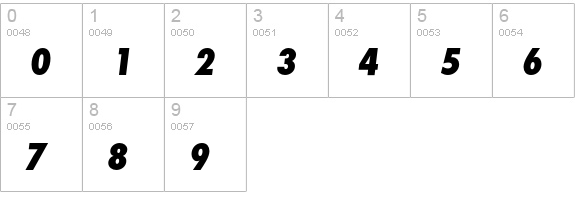
FuturaEF-ExtraBoldCondObl Font Details
FuturaEF-ExtraBoldCondObl is a bold and modern typeface that exudes confidence and sophistication. With its distinctive condensed and oblique design, this font is perfect for making a strong impact in headlines, titles, and branding materials. The sharp angles and clean lines of FuturaEF-ExtraBoldCondObl give it a sleek and futuristic look that is sure to capture attention. What makes FuturaEF-ExtraBoldCondObl even more appealing is that it is free to download at FontsMarket.com. This means you can easily access this high-quality font for your design projects without any cost. Whether you're creating posters, logos, or website headers, FuturaEF-ExtraBoldCondObl offers versatility and style that will elevate your designs to the next level. Don't miss out on the opportunity to enhance your work with this exceptional font that is both impactful and freely available.